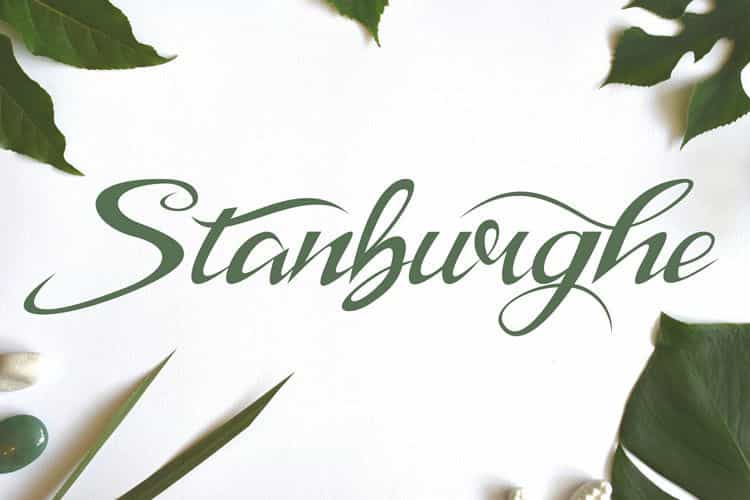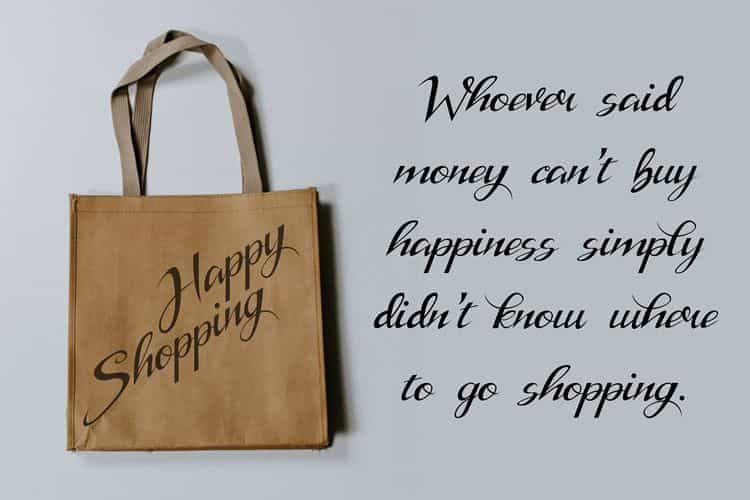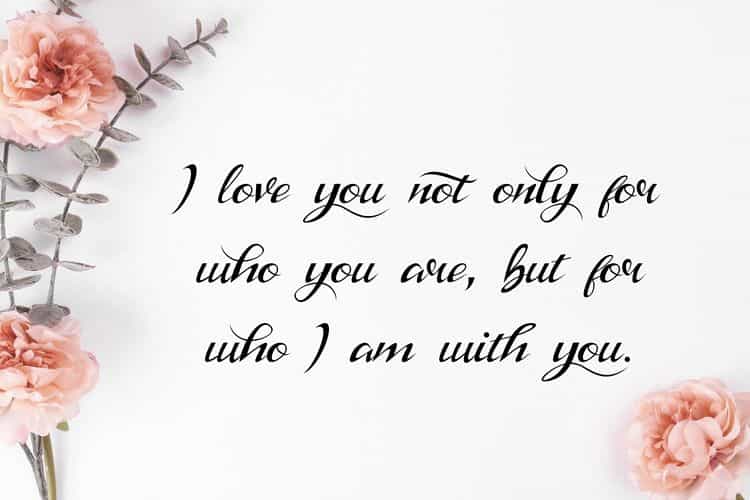
Discover Stanburghe Script Font, part of the Calligraphy collection—a versatile and unique font perfect for adding a personal touch to your projects. Download it for free and enjoy crafting designs with style, from invitations to social media posts. This font is available exclusively for personal use, giving you the freedom to create without limits. Unlock your creativity with Stanburghe Script Font today!
Introducing Stanburghe Font! Credit goes to Dieza Design for the design of this site. This font is really great for use on logo, blog/web headline, clothing, invitation, poster, cafe/resto sign and many more.